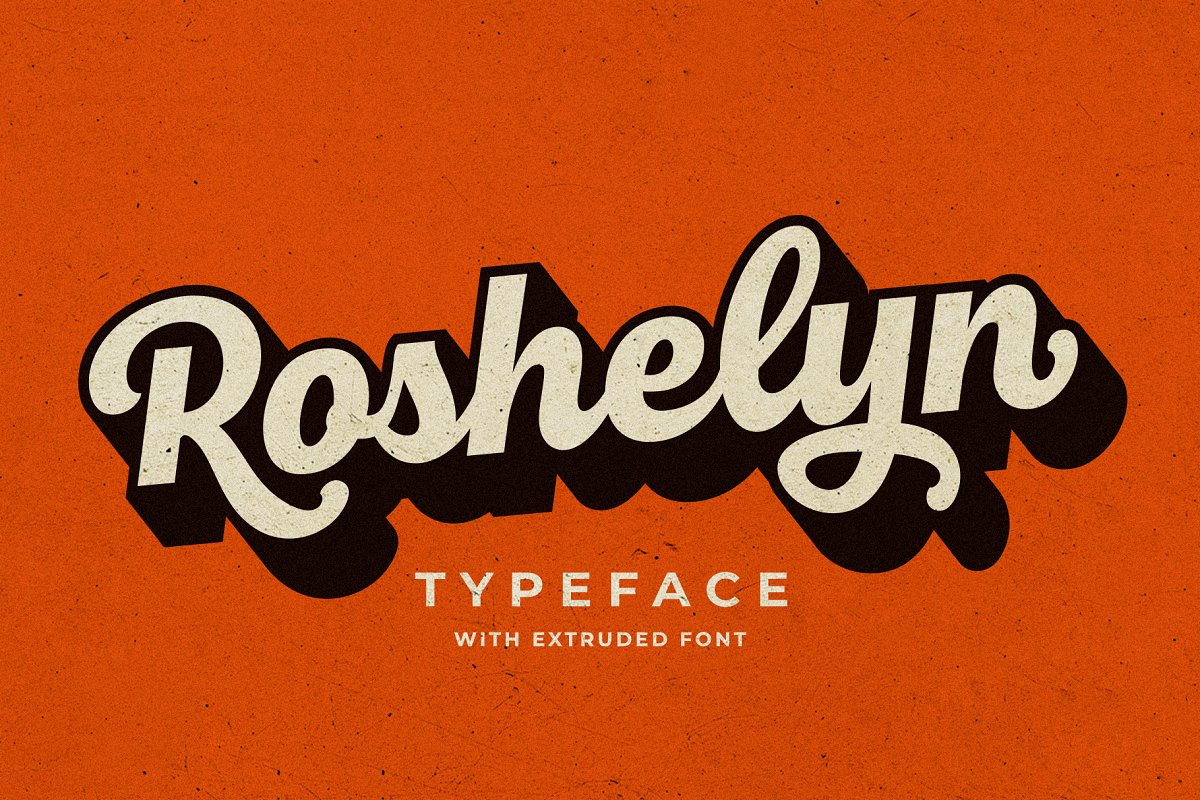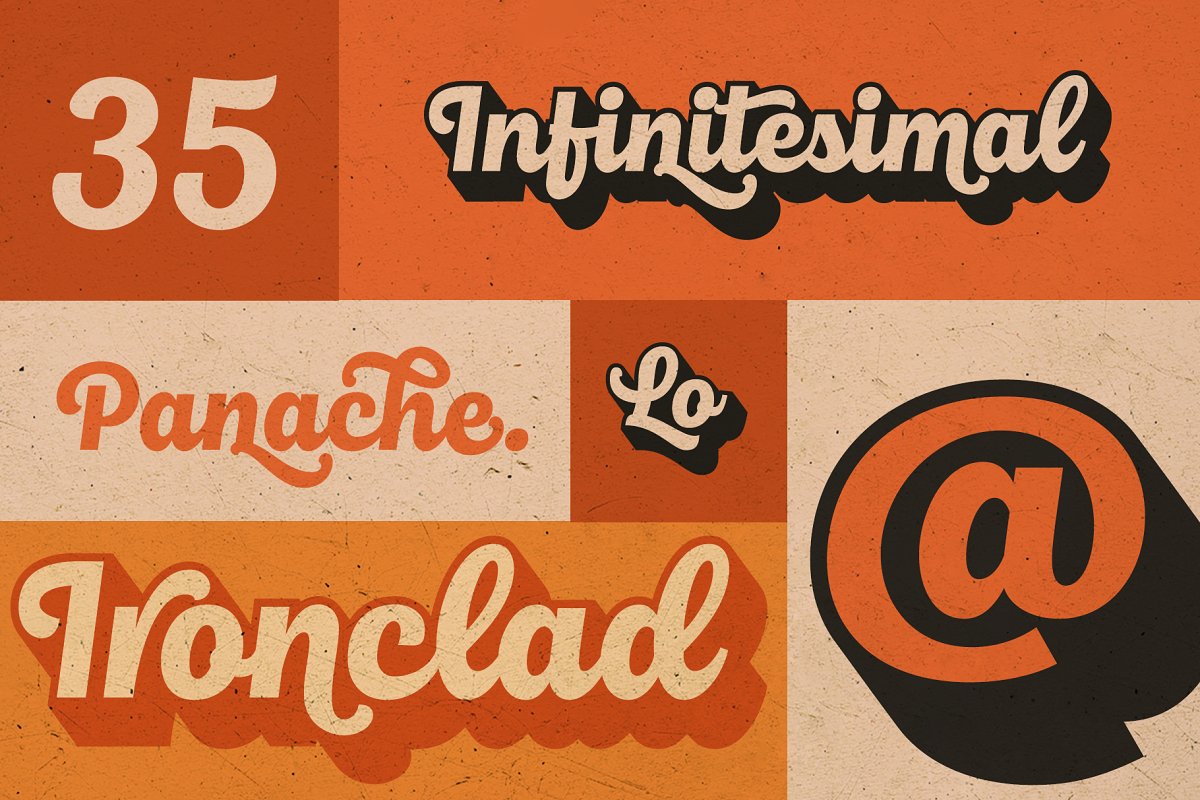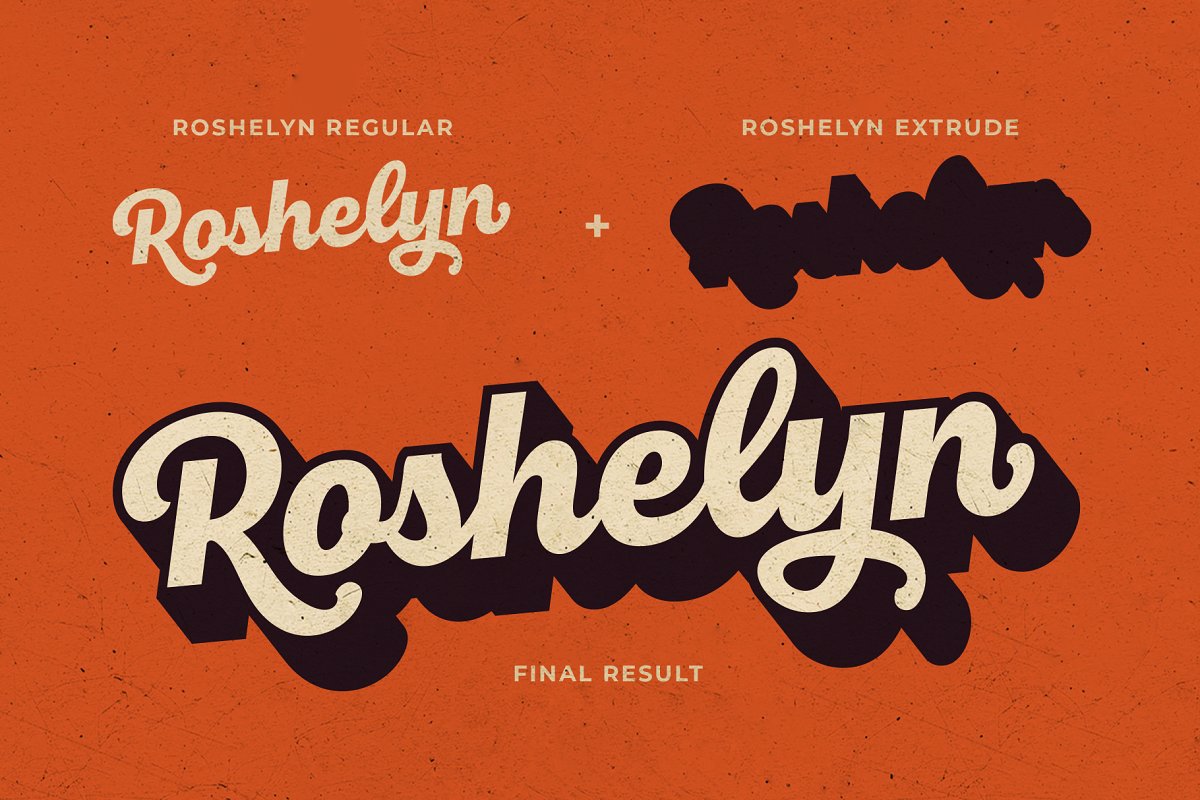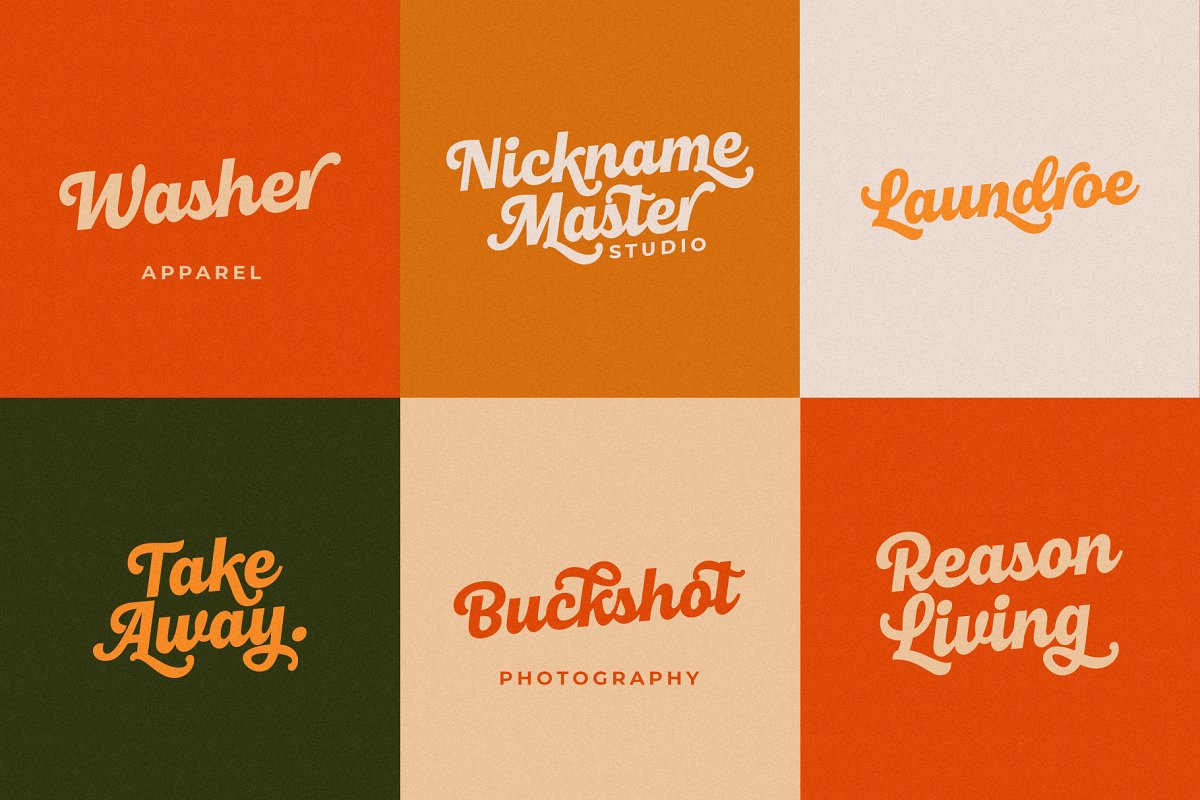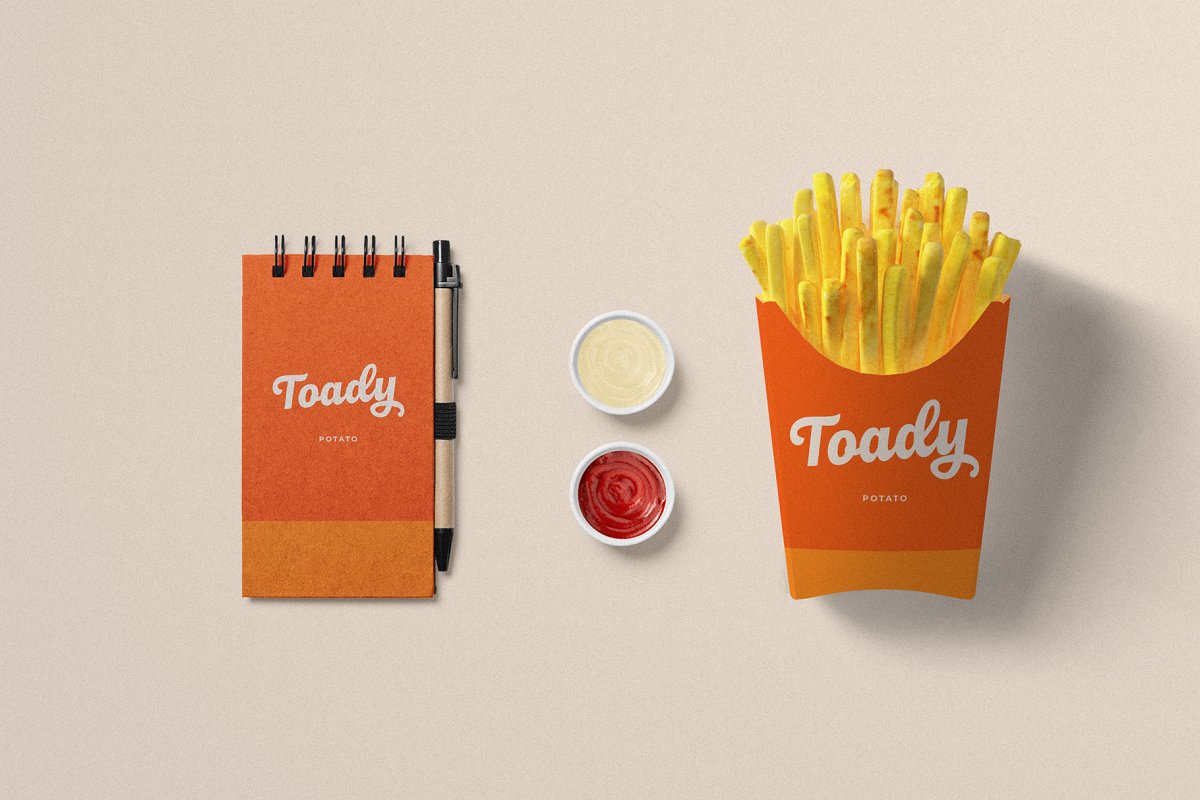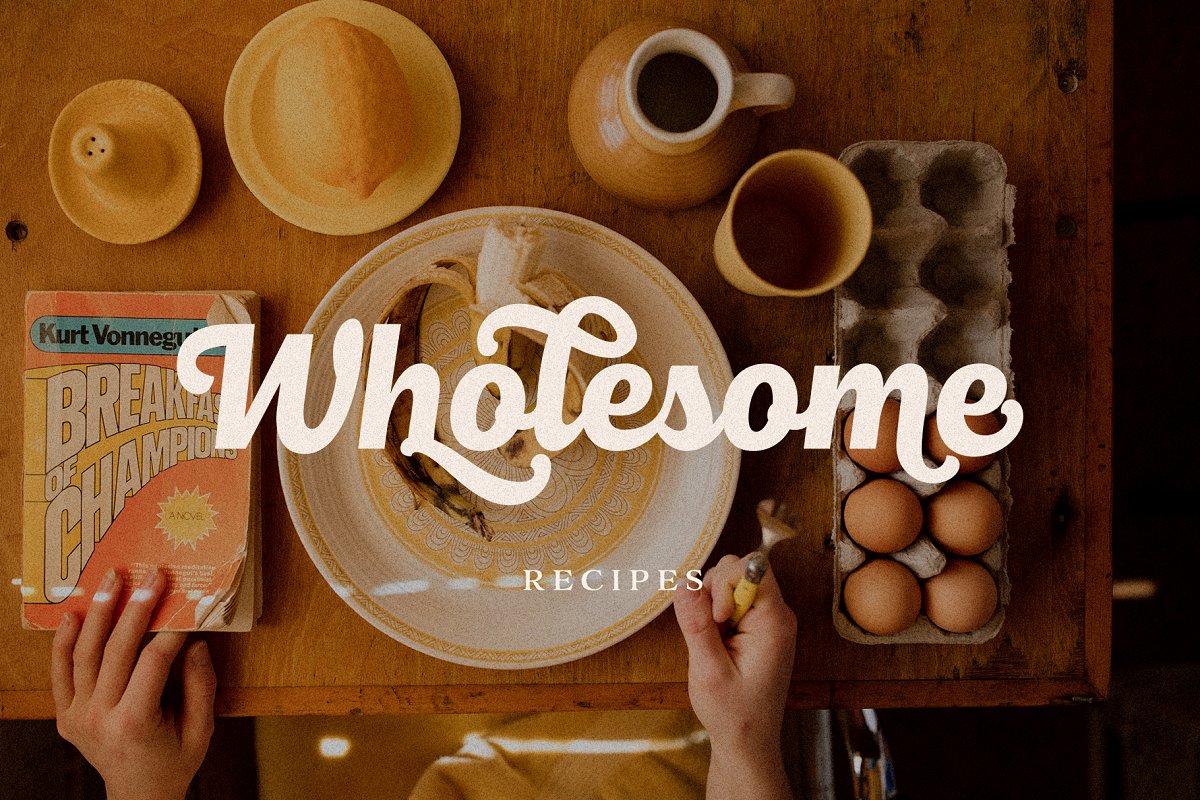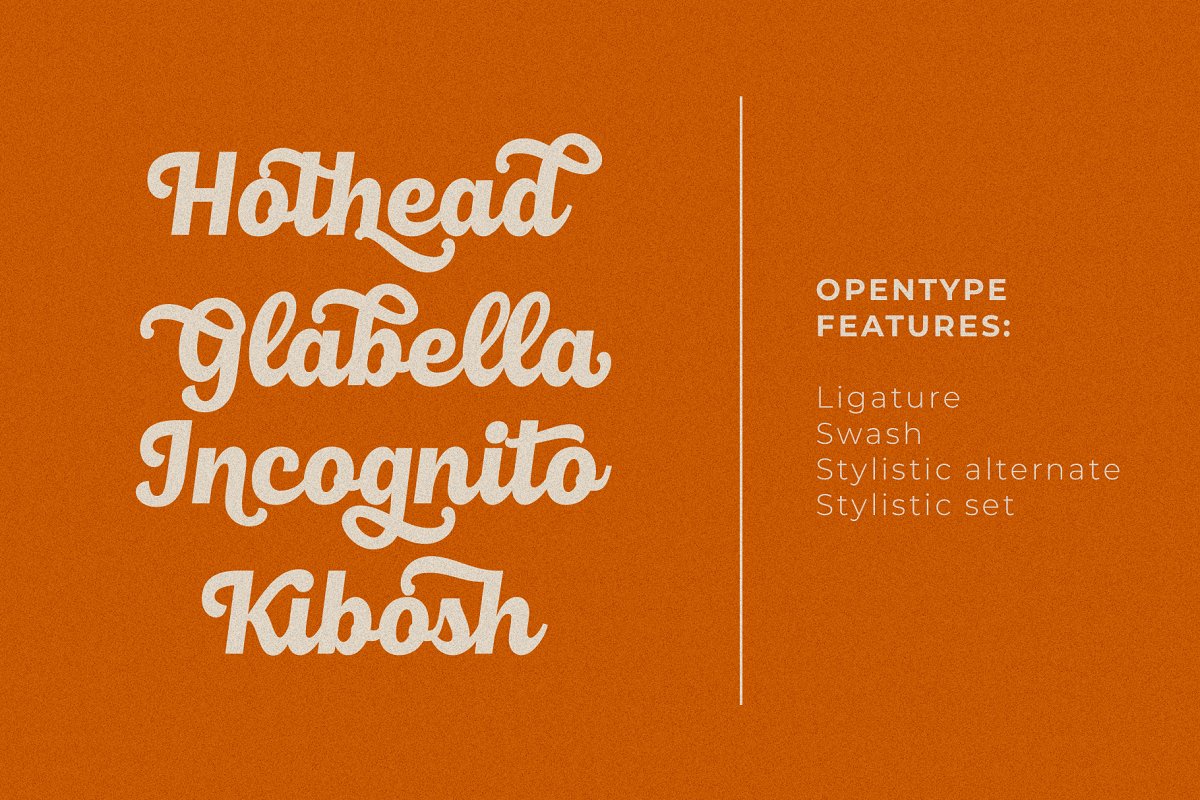
About the Roshelyn Typeface
Introducing Roshelyn Typeface A new carefully crafted and nicely balanced curve on script typefaces with personality, You can use it as a logo, badge, insignia, packaging, headline, poster, t-shirt/apparel, greeting card, and wedding invitation, The flowing characters are ideal to make an attractive message, Mix and match Roshelyn Typeface with a bunch of alternative characters to fit your project
The alternative characters in this font were divided into several OpenType features such as Stylistic Alternates, Stylistic Sets, and Ligature, The OpenType features can be accessed by using the OpenType program such as Adobe Illustrator, Adobe Photoshop, and Adobe InDesign